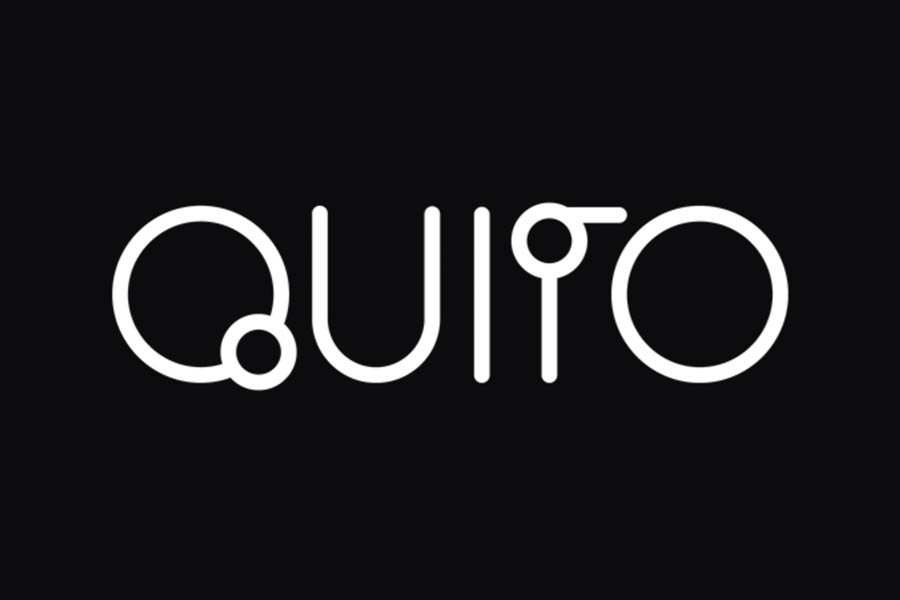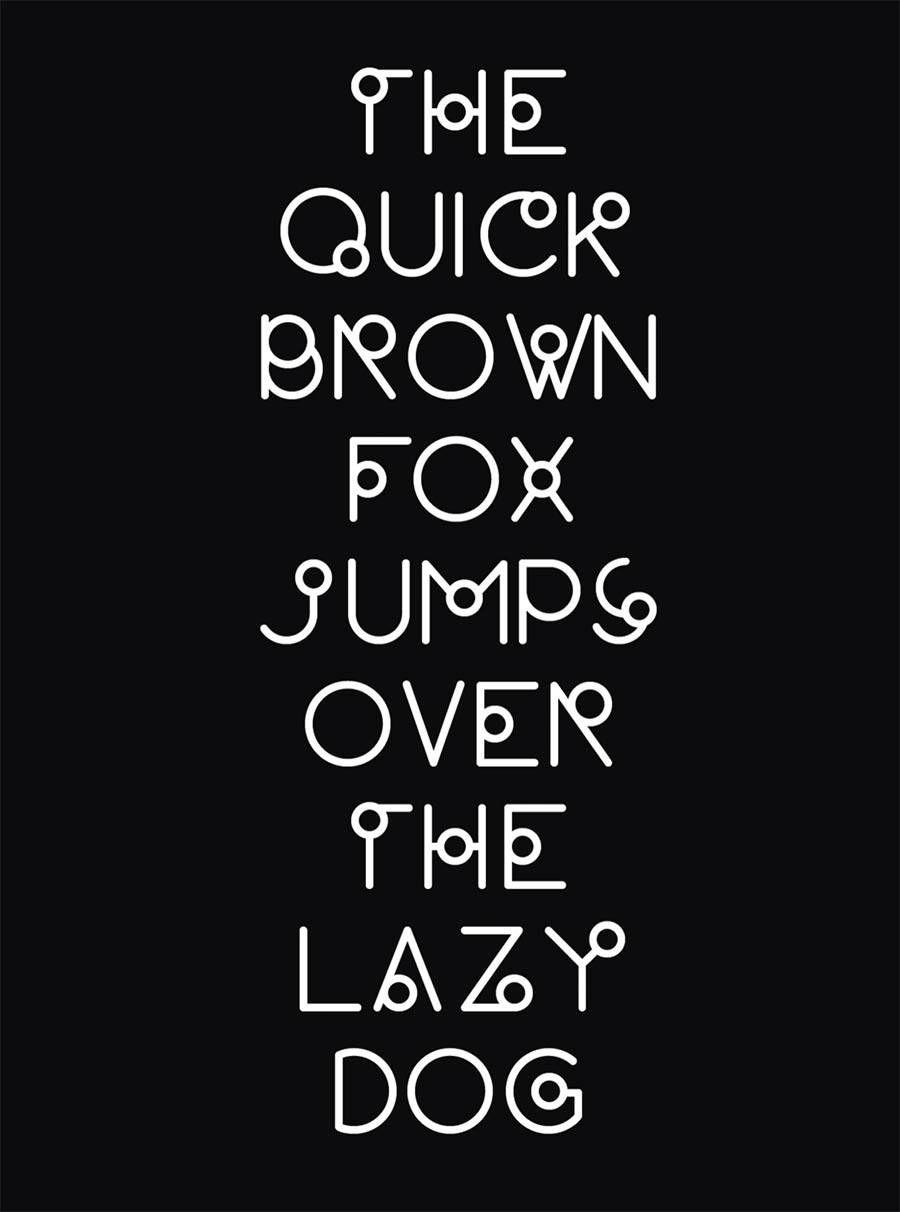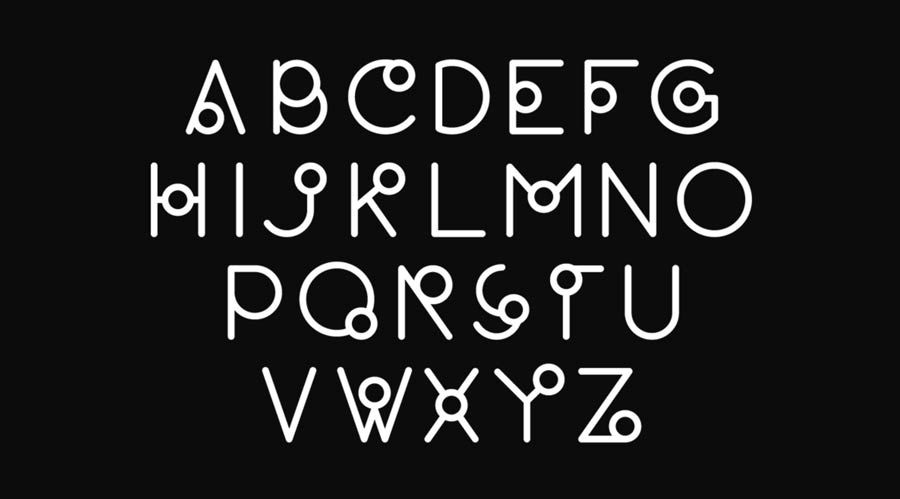
QUITO is a free font that was inspired by South American Tribe type font. It was constructed with geometrical lines and shapes, and has distinctive used of circle shape. It has only uppercase characters and no numerals and symbols which makes this font less useful, but it will give a sense of uniqueness to your designs.